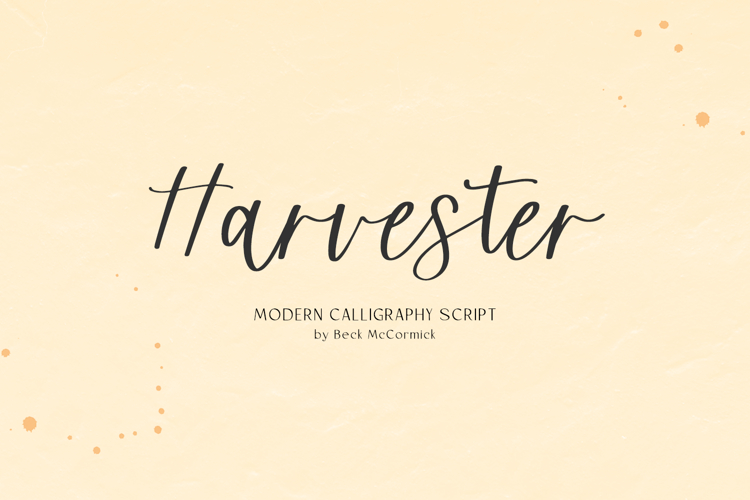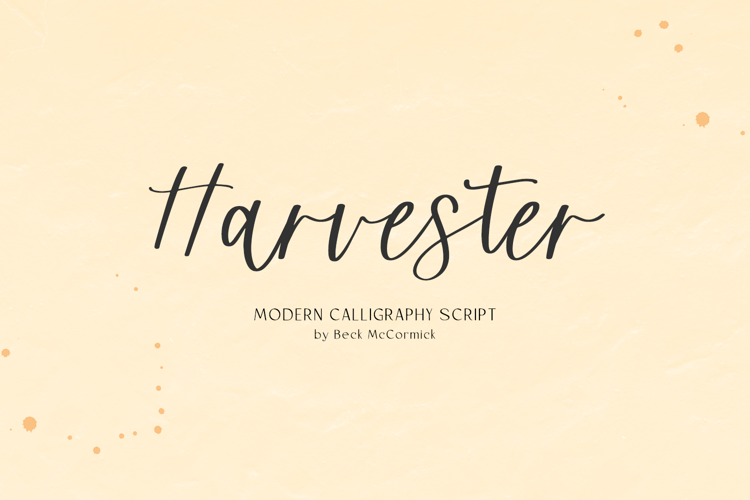
Introducing Harvester, a modern calligraphy script.
Harvester is best for:
- feminine, crafty projects with your Cricut or Silhouette machine, or your SVG design business
- farmhouse decor and crafts
- digital planners & apps like Goodnotes
- website design + website accents, blog design
- feminine graphic tee shirt design & other apparel